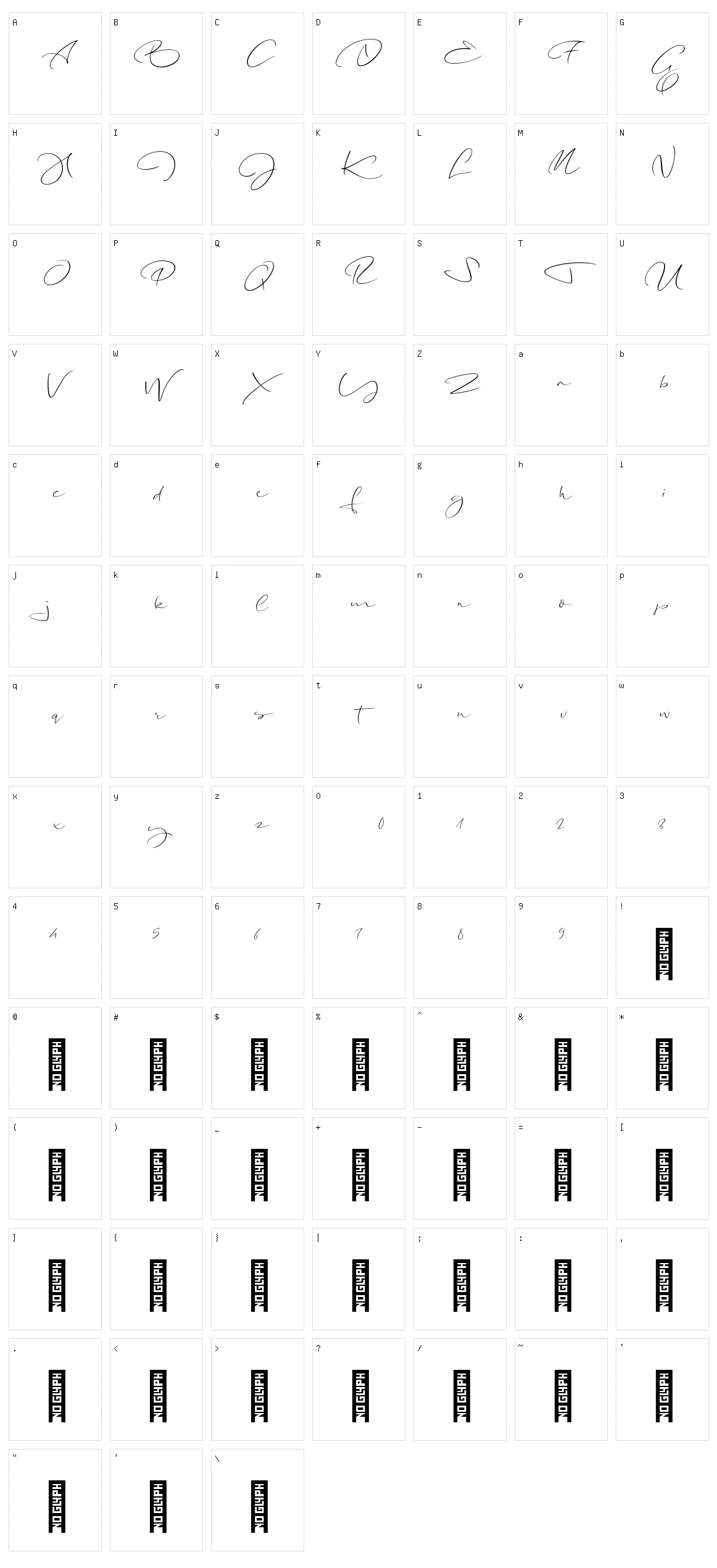
L O N G N I G H T i s a d e m o v e r s i o n o f a h a n d w r i t i n g / s i g n a t u r e s c r i p t . P e r f e c t f o r t i t l e s , h e a d i n g s a n d l o g o t y p e s , p r o d u c t s o r p h o t o g r a p h y w a t e r m a r k s .
F u l l v e r s i o n c o n t a i n s t e r m i n a l s a n d l i g a t u r e s f o r b e t t e r c o n n e c t i o n a n d m o r e n a t u r a l f l o w , E a s t e r n a n d W e s t e r n E u r o p e a n l a n g u a g e a c c e n t e d c h a r a c t e r s .